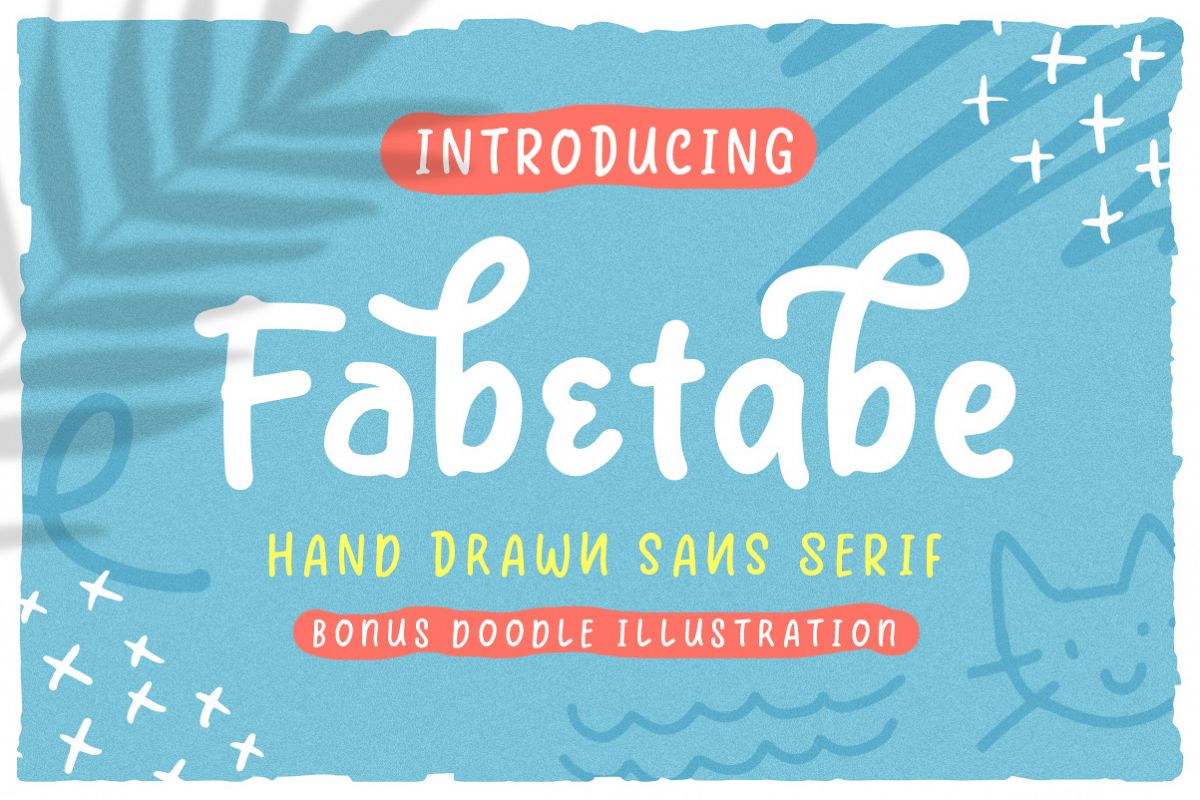
Fabetabe - A Hand Drawn Sans
Fabetabe Sans
Fabetabe is a Hand Drawn Sans Serif Typeface.
This Fonts gives a feel of Playful, Casual and Natural hand writing looked like. Also come with FREE Various Doodle illustrations to make better design. This font also already PUA Encoded. Suitable for any graphic designs such as branding materials, t-shirt, print, label, logo, poster, t-shirt, Children's Book, quotes .etc